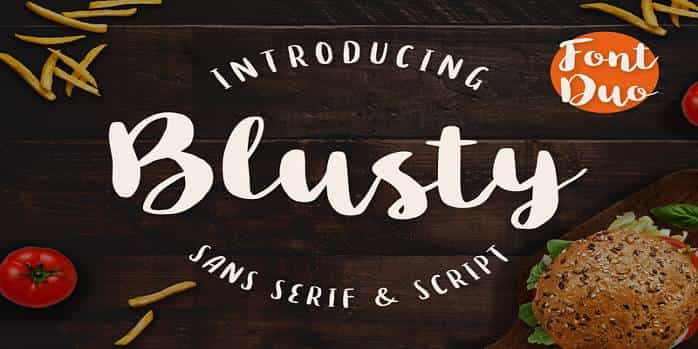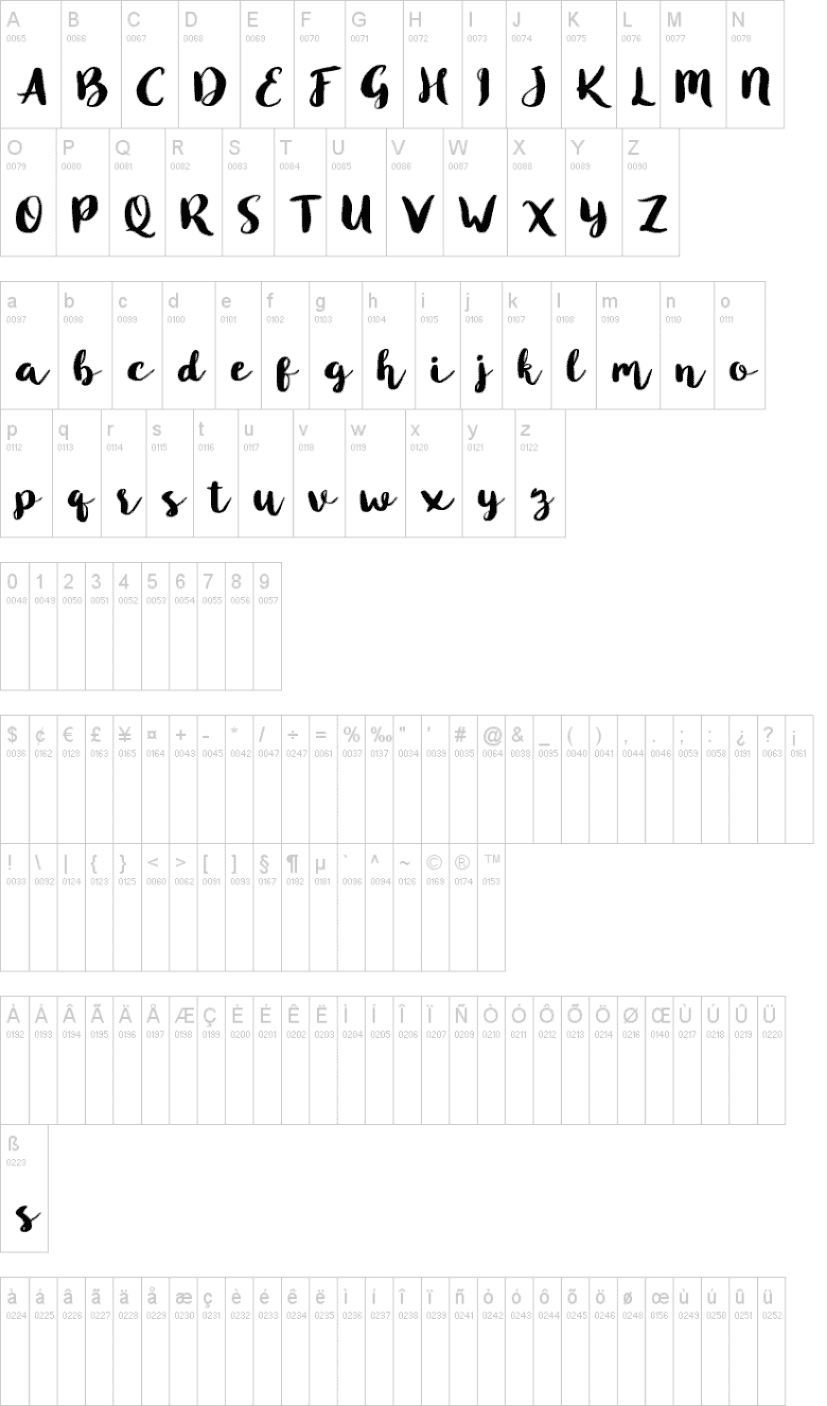
Blusty Font Duo is a unique handwritten script font which has been designed on the real handwritten style, which can be used to convert type into an attractive and artistic piece of work. Such informal, naive text style makes a lot of sense and has a very warm and friendly touch to things and it is accompanied with a lot of love. When all font-styles are combined in a way you like, add some extra ornaments in the form of swashes or banners and even one word looks beautiful.